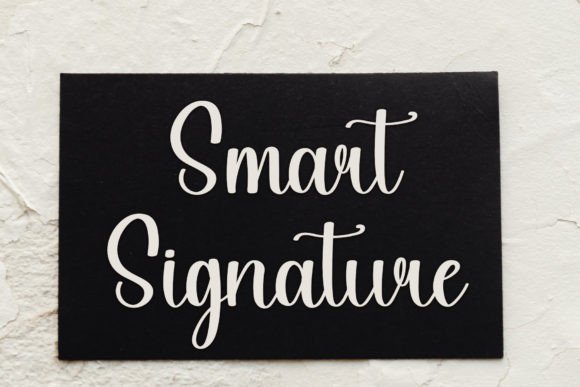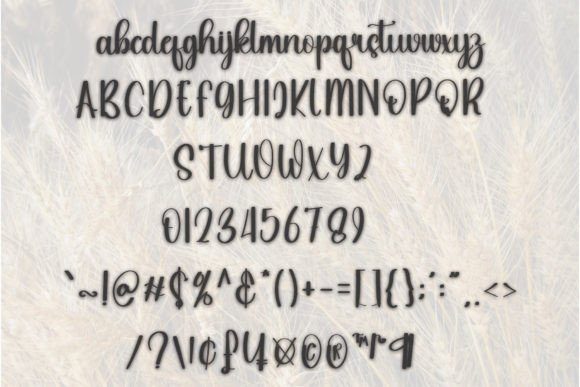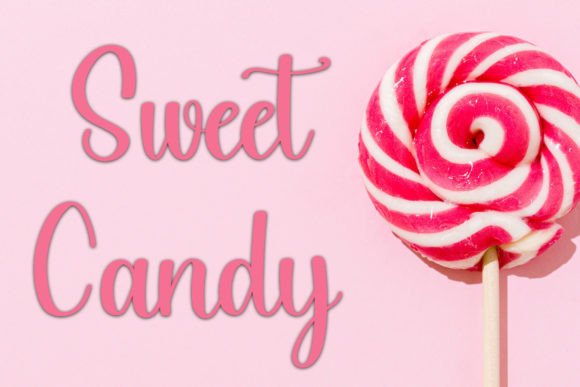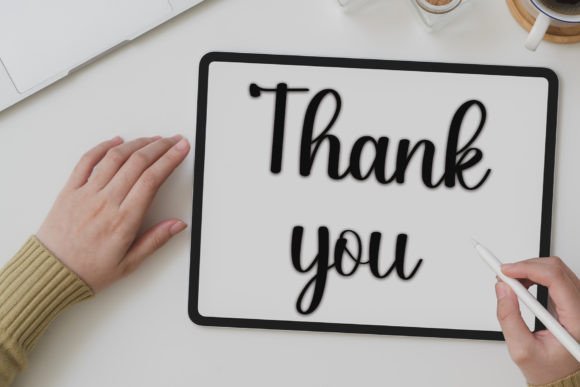
Introducing Grilling Font: Elevate Your Designs with Elegance
Are you on the lookout for a font that adds a touch of sophistication and charm to your projects? Look no further than Grilling Font, a stunning handwritten font that is sure to capture your heart. With its elegant and distinctive style, Grilling Font is perfect for designers, crafters, and anyone looking to create spectacular designs that stand out from the crowd.
The Beauty of Grilling Font
Grilling Font is a neat and beautiful handwritten font that boasts an incredibly distinct and timeless style. Its elegant touch makes it ideal for a wide range of projects, from wedding invitations and branding materials to social media graphics and craft projects. Whether you’re looking to add a touch of whimsy or create a more formal design, Grilling Font is the perfect choice.
What Makes Grilling Font So Special?
So, what sets Grilling Font apart from other fonts? Here are just a few reasons why designers and crafters are falling in love with this beautiful font:
- Elegant and Refined: Grilling Font features an elegant and refined style that is perfect for creating sophisticated designs. Its smooth lines and flowing curves make it a joy to work with.
- Distinctive and Timeless: Unlike other fonts that may come and go, Grilling Font has a timeless quality that ensures your designs will remain stylish and relevant for years to come.
- Versatile: Grilling Font is incredibly versatile, making it suitable for a wide range of projects and applications. Whether you’re working on a formal or informal design, this font is sure to impress.
- Easy to Read: Despite its elegant style, Grilling Font is incredibly easy to read, making it perfect for body text and other applications where legibility is key.
How to Use Grilling Font in Your Designs
Grilling Font is incredibly easy to use and can be incorporated into your designs in a variety of ways. Here are a few ideas to get you started:
- Wedding Invitations: Add a touch of elegance to your wedding invitations with Grilling Font. Its sophisticated style is perfect for formal weddings and other special occasions.
- Branding Materials: Use Grilling Font to create stunning branding materials, such as logos, business cards, and letterheads. Its distinctive style is sure to help your brand stand out.
- Social Media Graphics: Create eye-catching social media graphics with Grilling Font. Its elegant style is perfect for creating engaging and shareable content.
- Craft Projects: Grilling Font is also perfect for craft projects, such as scrapbooking, card making, and other paper crafts. Its whimsical style adds a touch of personality to any project.
Tips and Tricks for Working with Grilling Font
Here are a few tips and tricks to help you get the most out of Grilling Font:
- Experiment with Sizes: Grilling Font looks great in a variety of sizes, so don’t be afraid to experiment and find the perfect size for your project.
- Pair with Other Fonts: Grilling Font pairs well with other fonts, so try combining it with a sans-serif font for a bold and eye-catching look.
- Use it for Headings: Grilling Font is perfect for headings and titles, so use it to add a touch of elegance to your designs.
Grilling Font is a stunning handwritten font that is sure to elevate your designs to the next level. With its elegant and distinctive style, it’s perfect for a wide range of projects and applications. Whether you’re a designer, crafter, or simply someone looking to create spectacular designs, Grilling Font is a must-have font that is sure to impress. So why wait? Fall in love with Grilling Font today and start creating stunning designs that showcase your unique style and creativity!